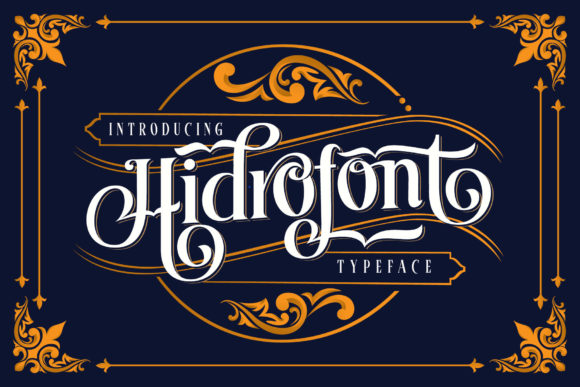
Welcome to the realm of typography, where beauty meets functionality in perfect harmony. Allow us to introduce you to the Hidro Font, a captivating serif font that exudes elegance, sophistication, and a touch of nostalgia. Step into a world where your words come alive, adorned with the timeless charm of the past.
Hidro Font is a masterpiece crafted by the skilled hands of Alit Design, a visionary artist with an unwavering passion for creating fonts that resonate with the hearts and minds of users. This meticulously designed font family boasts a distinctive personality, seamlessly blending the classic serif style with a hint of contemporary flair.
Dive into a world of possibilities with Hidro Font. Its bold and distinct characters command attention, making it the perfect choice for logos, branding, and any design project where you want to leave a lasting impression. Imagine your business name or brand identity adorned with the Hidro Font, exuding an aura of elegance and professionalism that will set you apart from the ordinary.
Harness the power of Hidro Font to create invitations and stationery that transport your guests to a bygone era. Picture stunning wedding invitations, save-the-dates, and thank-you cards, all adorned with the intricate beauty of Hidro Font. Your heartfelt words will be elevated, carrying the weight of history and the promise of lasting memories.
Unlock the creative potential of Hidro Font in your social media posts and online marketing materials. Its captivating charm will draw your audience in, creating an emotional connection that goes beyond words. Engage your followers with visually stunning posts, captivating stories, and inspiring quotes, all brought to life with the Hidro Font's timeless beauty.
Hidro Font is more than just a font; it's an experience. A journey through time where classic elegance meets modern functionality. Embrace its versatility and let your creativity soar. Whether you're a seasoned designer or just starting your typographic adventure, Hidro Font is the perfect companion for your creative endeavors.